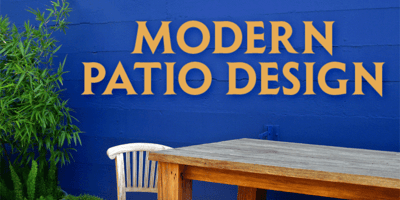
Shàngó Gothic
Shàngó Gothic font
Shàngó Gothic Font Family was designed by Jason Castle and published by CastleType. Shàngó Gothic contains 4 styles and family package options. Shàngó is CastleType’s beautifully-rendered interpretation of Professor F.H.E. Schneidler’s elegant titling typeface released in 1936 with the name ‘Schneidler-Mediaeval mit Initialen’. This latter design is usually referred to as Schneidler Initials. Although early on Medium and Bold weights were added to the somewhat delicate design of Shàngó, it seemed there were other possibilities that might be useful for display use. So, for the last couple of years I have been working on and off on a monoline version of Shàngó. This new design maintains the classic letterforms of the original, but its relatively even strokes gives it a more solid appearance, making it useful where a more modern, masculine look is needed. This new family is called Shango Gothic and is available in four weights: Regular, Medium, Bold, and Extra Bold. Shàngó Gothic is a member of the extended Shàngó family (Classic, Chiseled, Sans, Gothic).